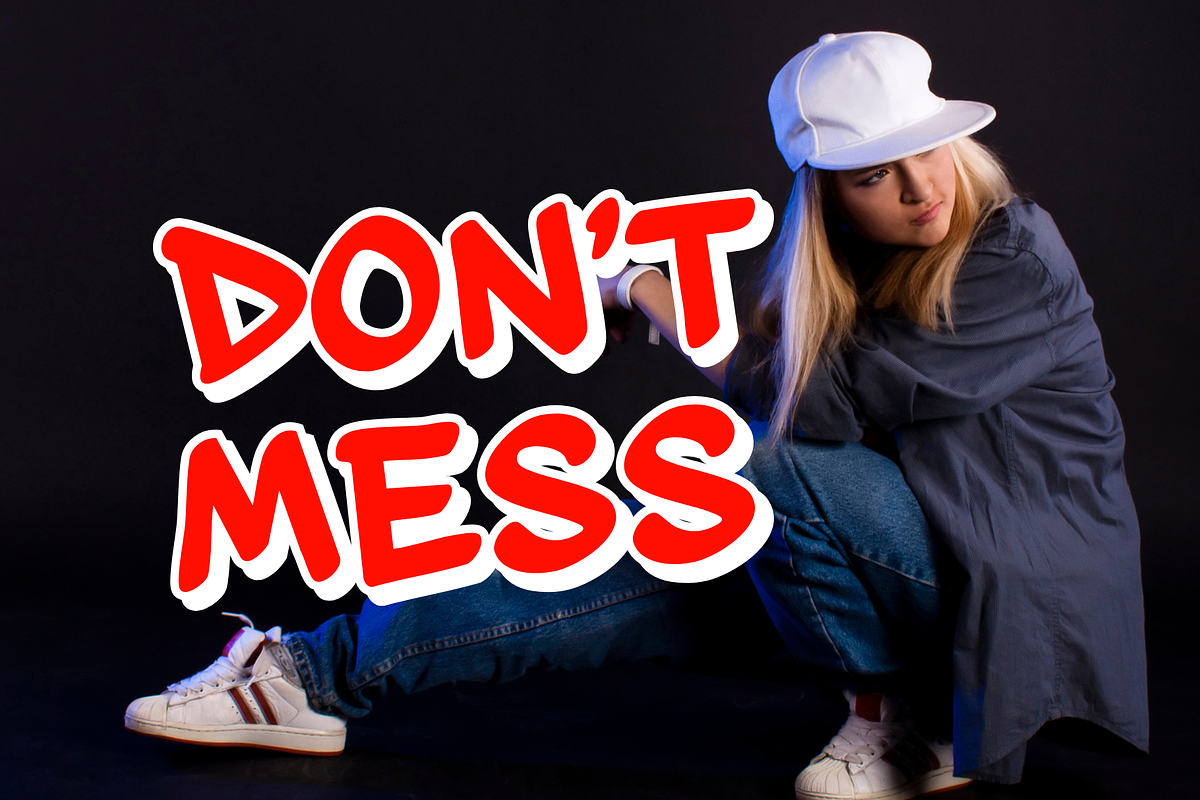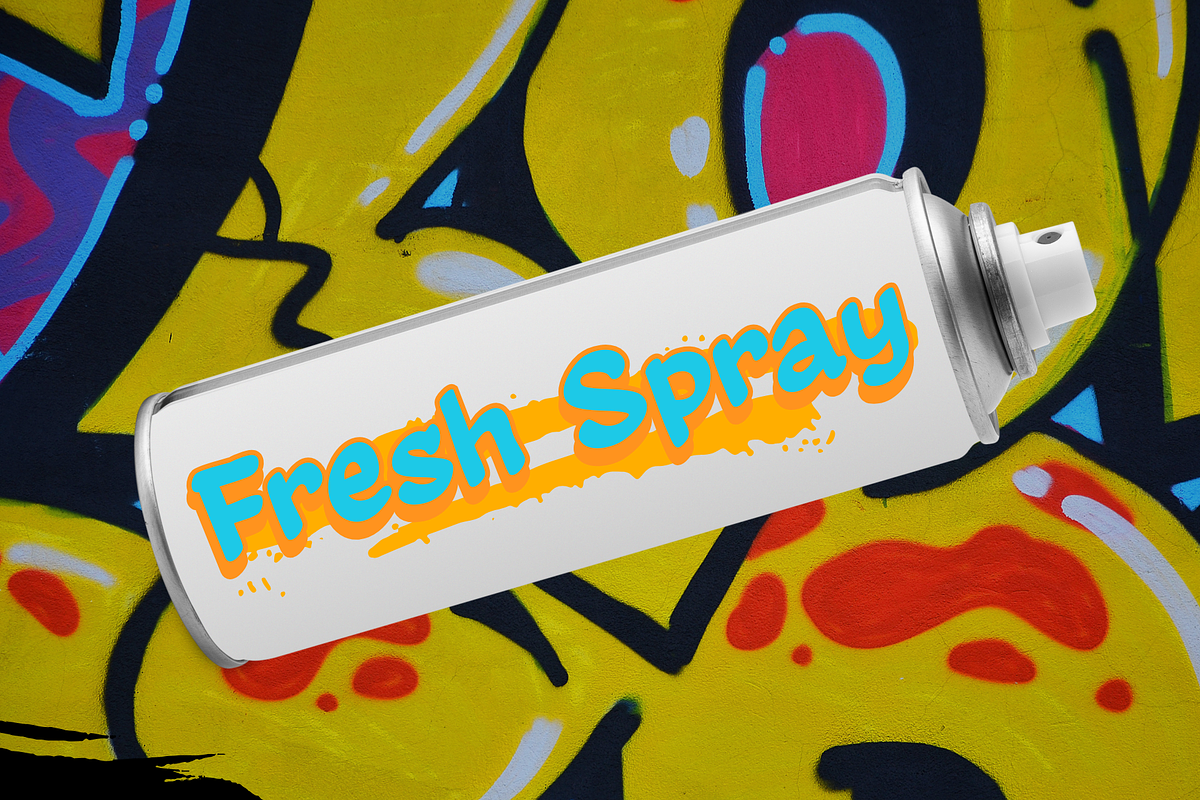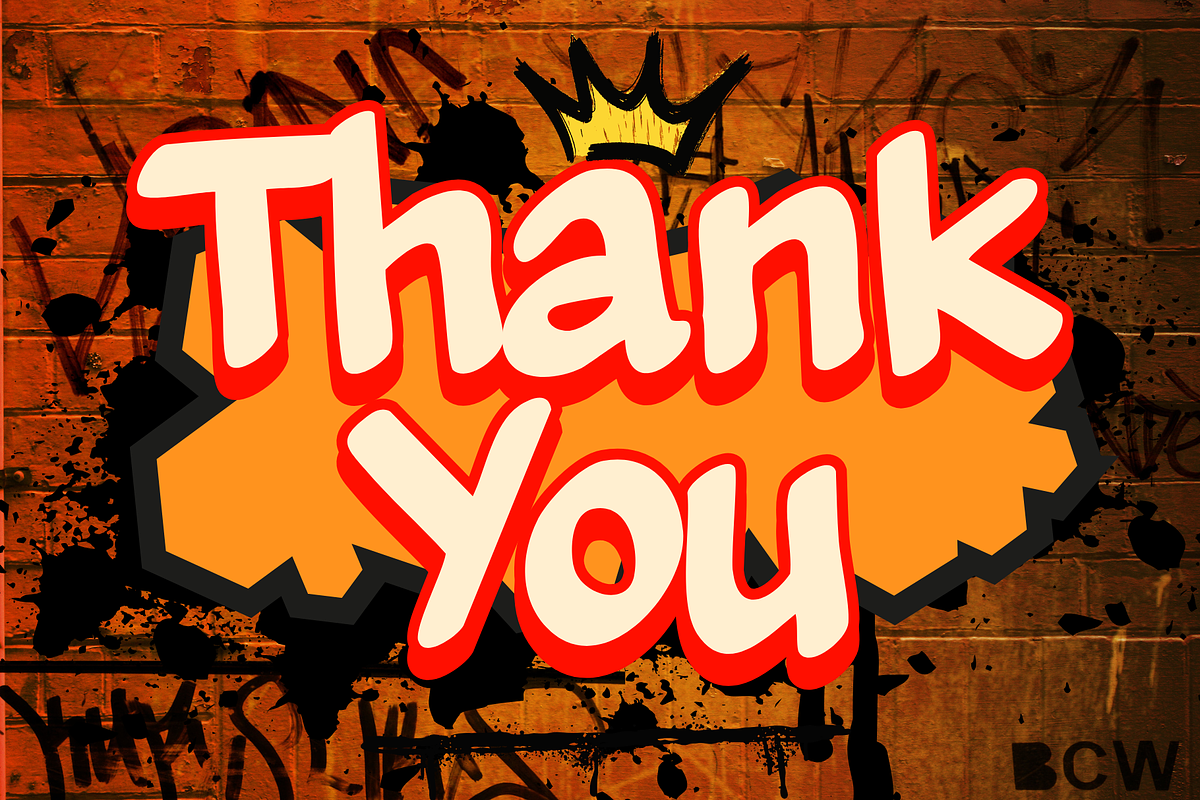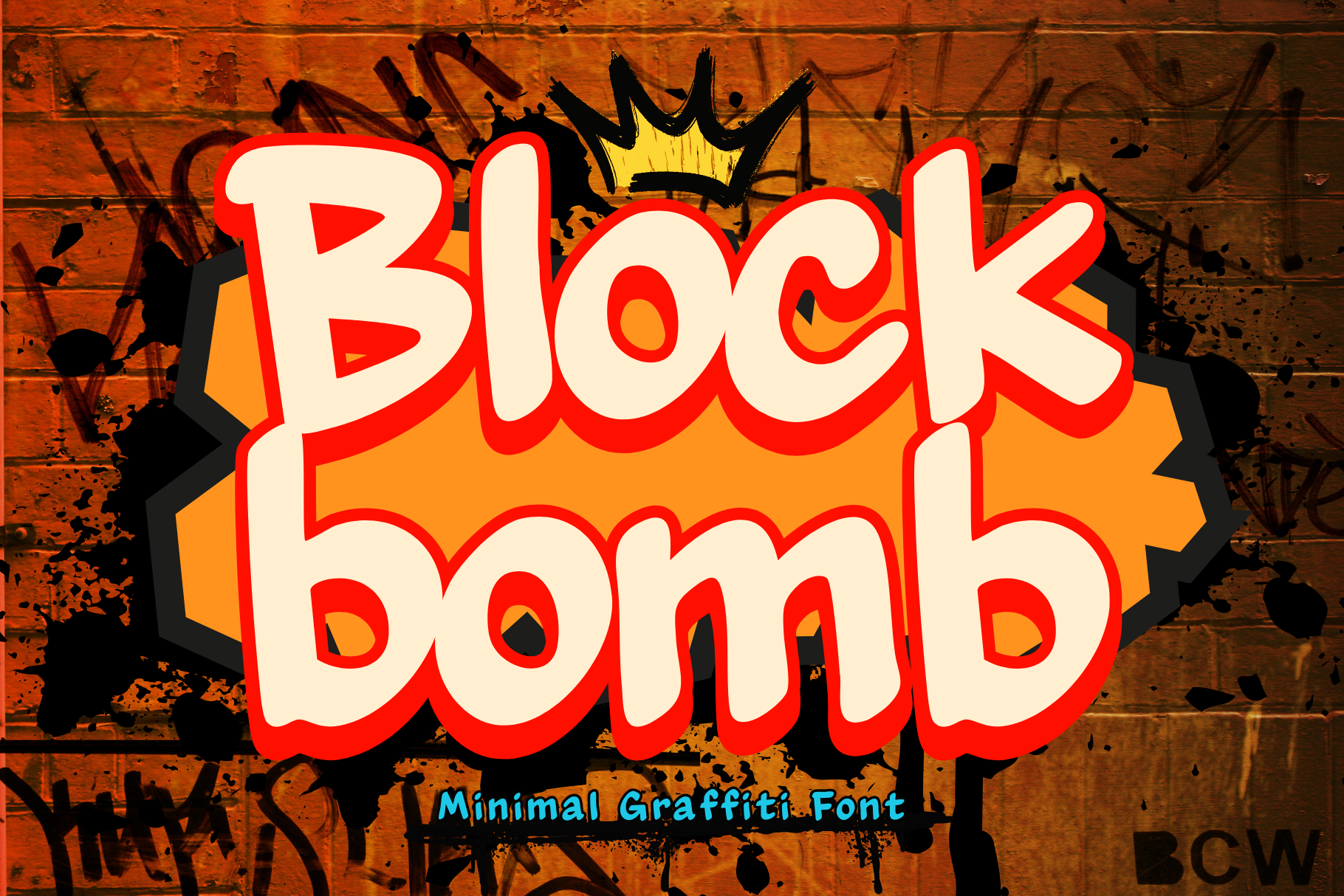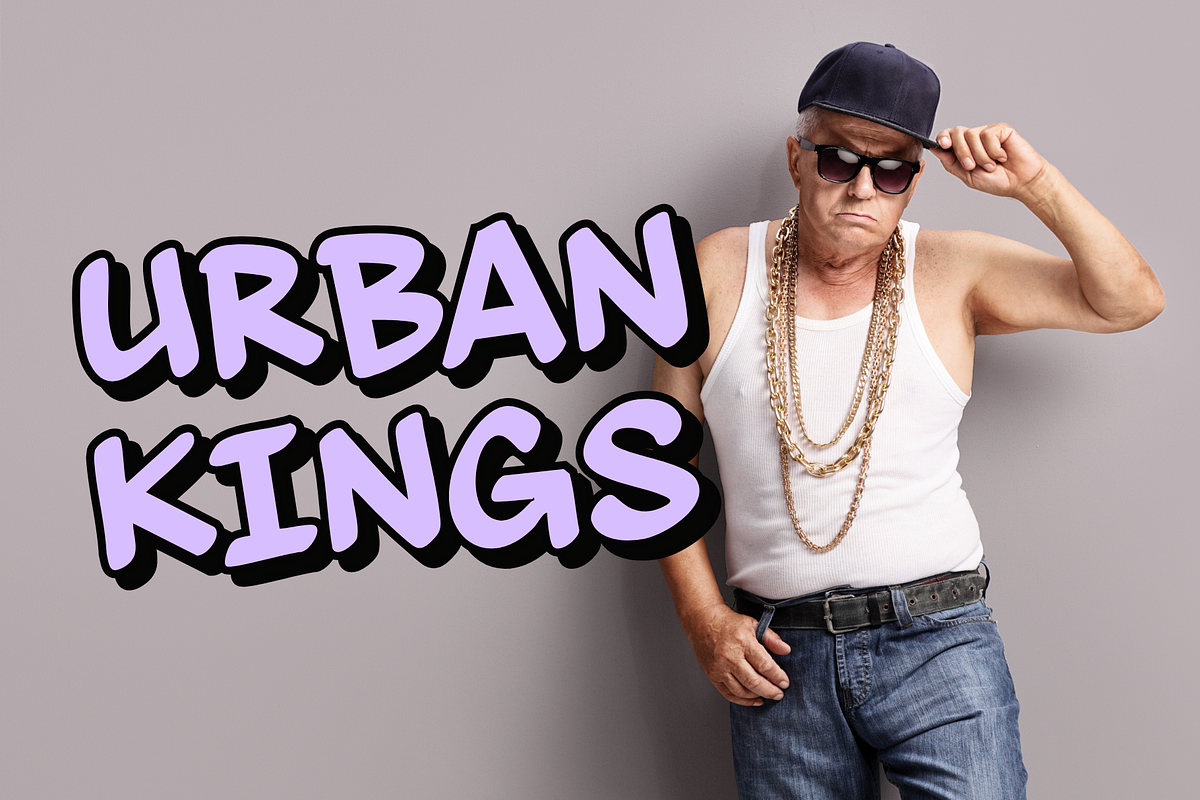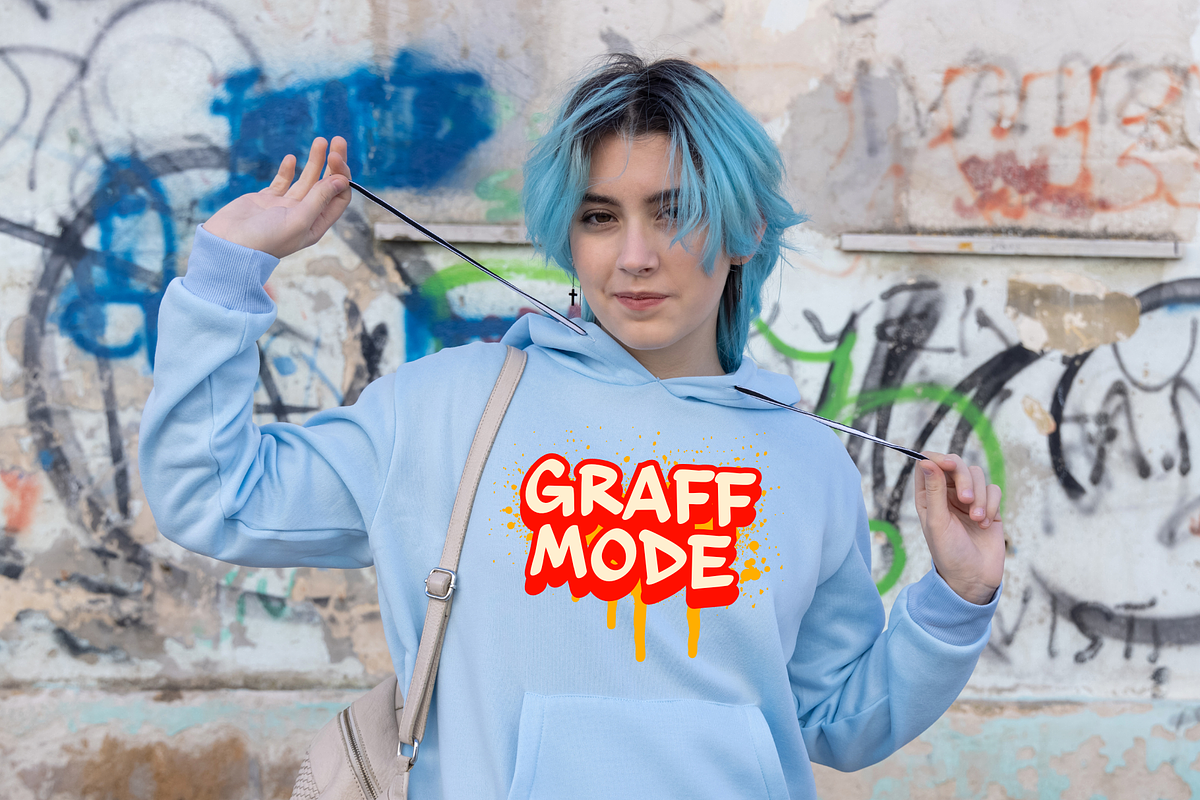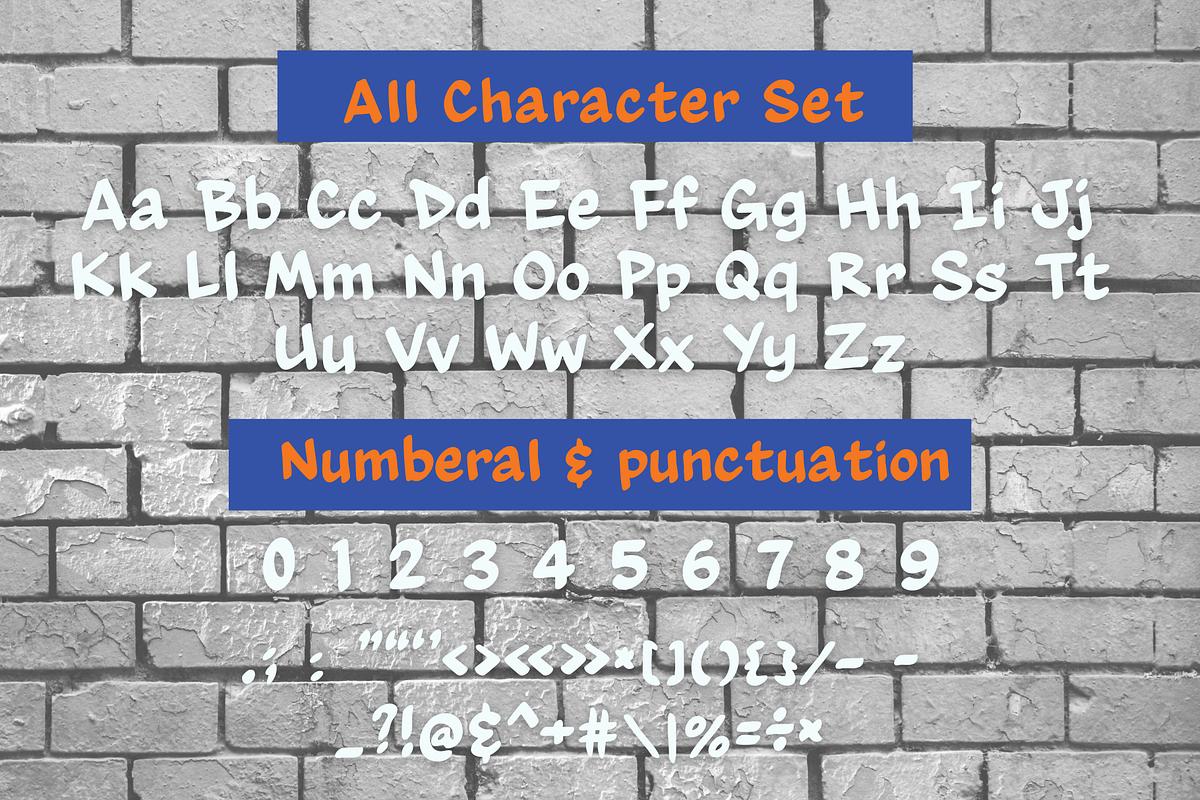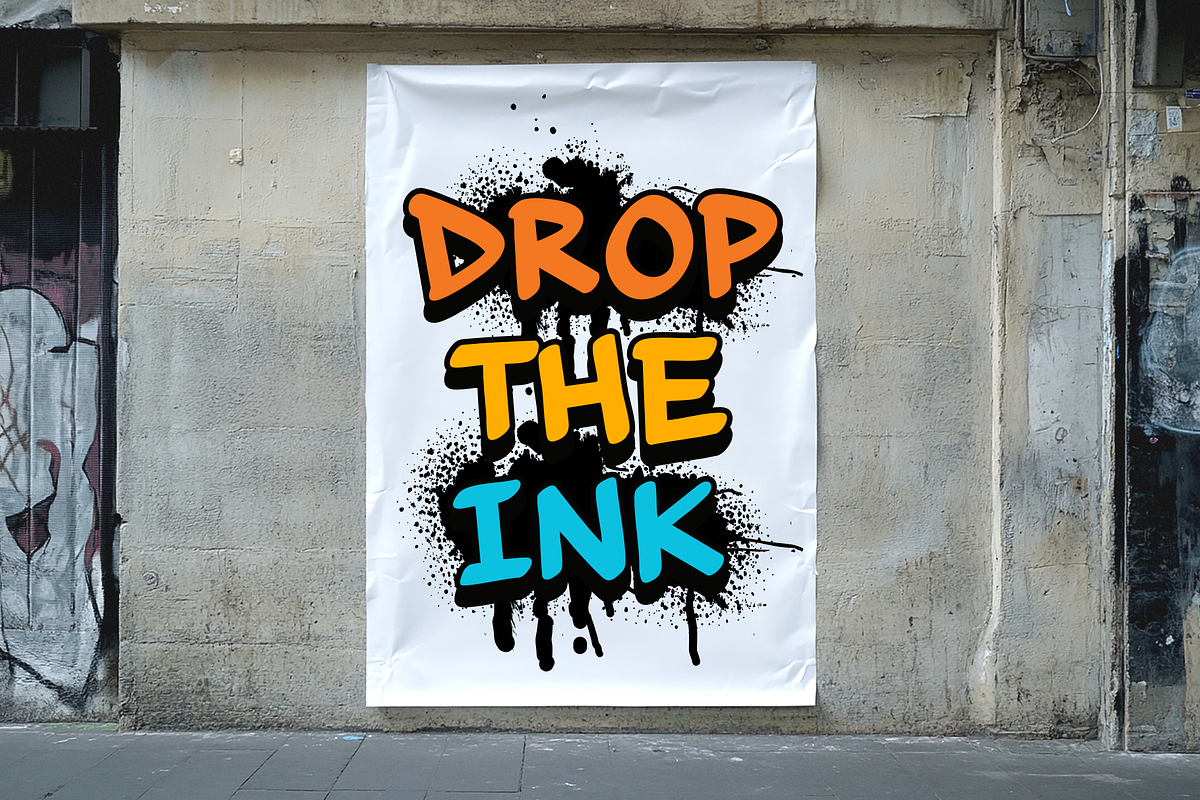
Blockbomb is a cool graffiti font
Blockbomb is a cool, graffiti-tagging font. It embodies playfulness and authenticity and is the perfect choice for all your favorite projects, including blog posts, logos, branding, ads, invitations, greeting cards, planners, photo albums, decorations, and more. Add it to any of your designs, and enjoy the results!